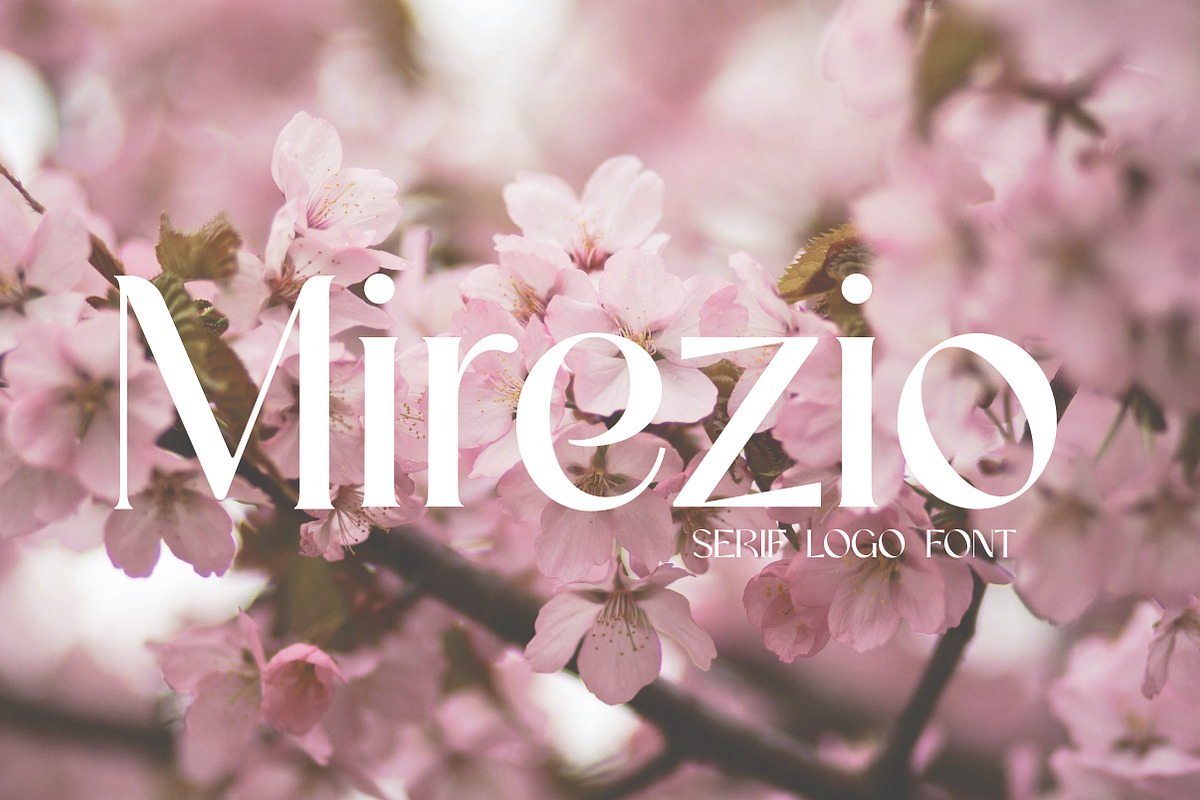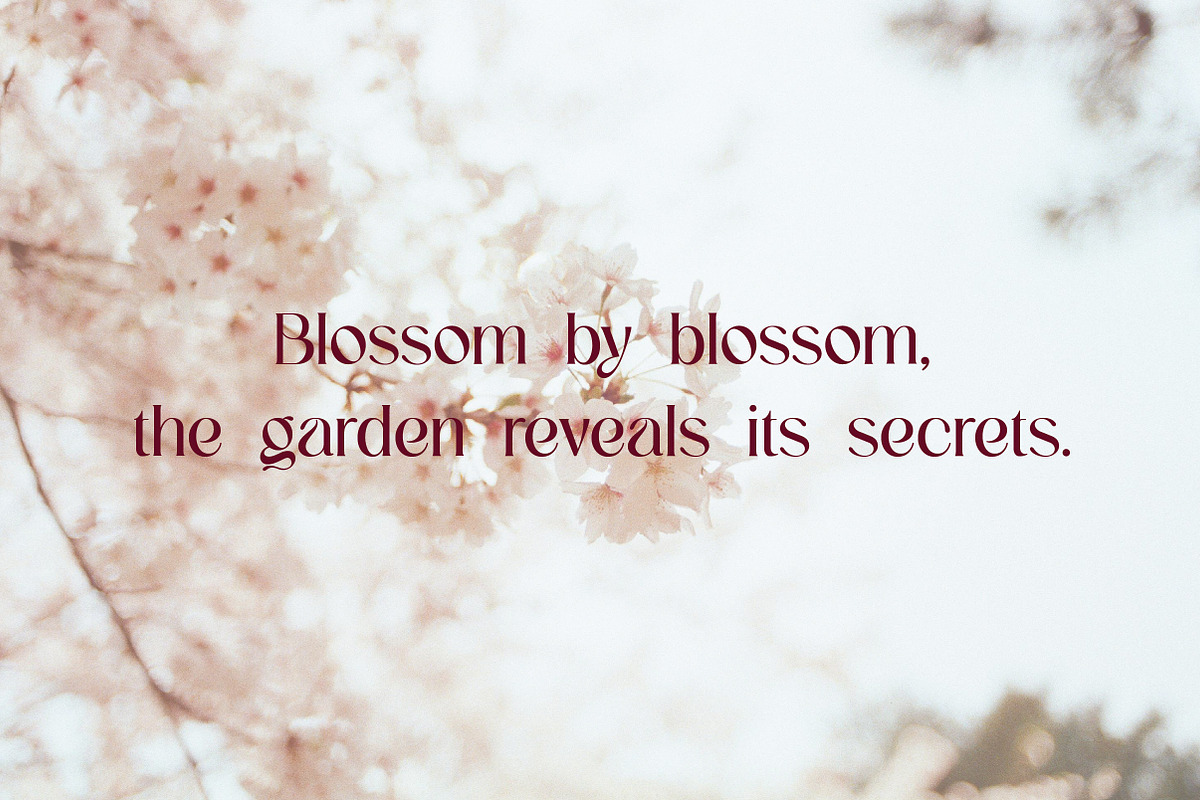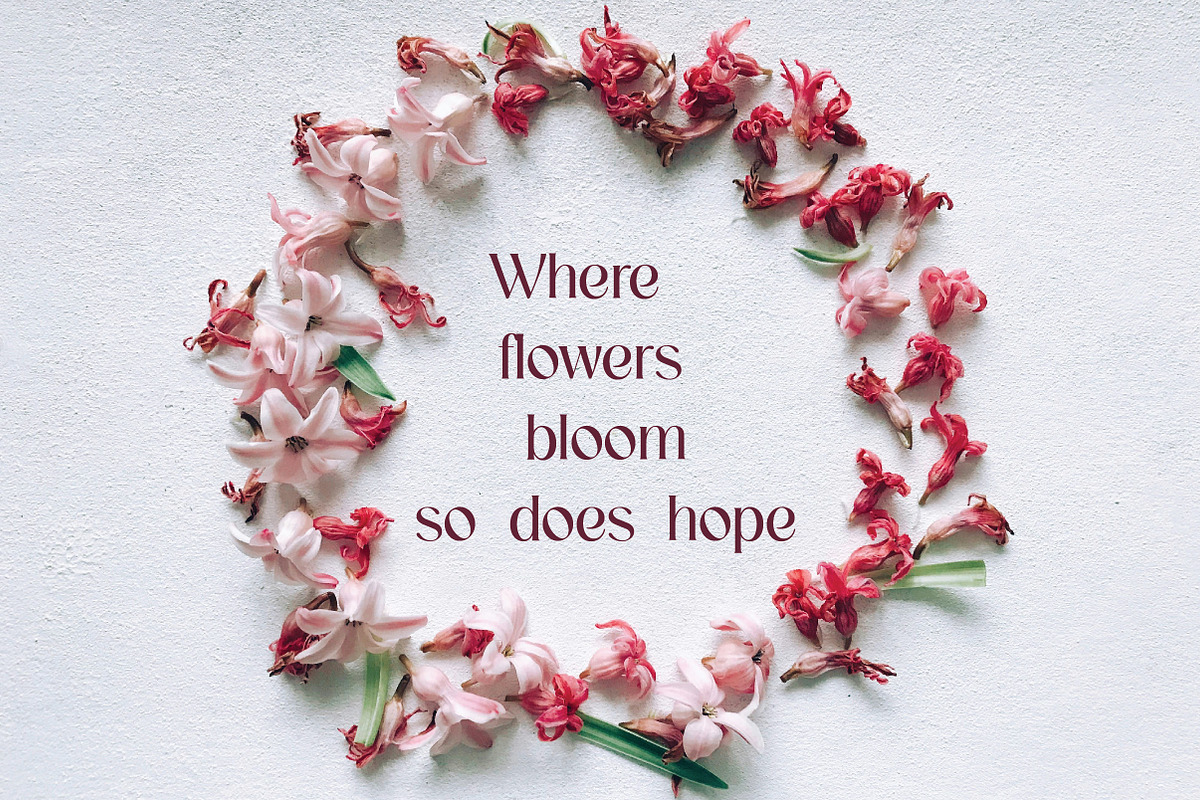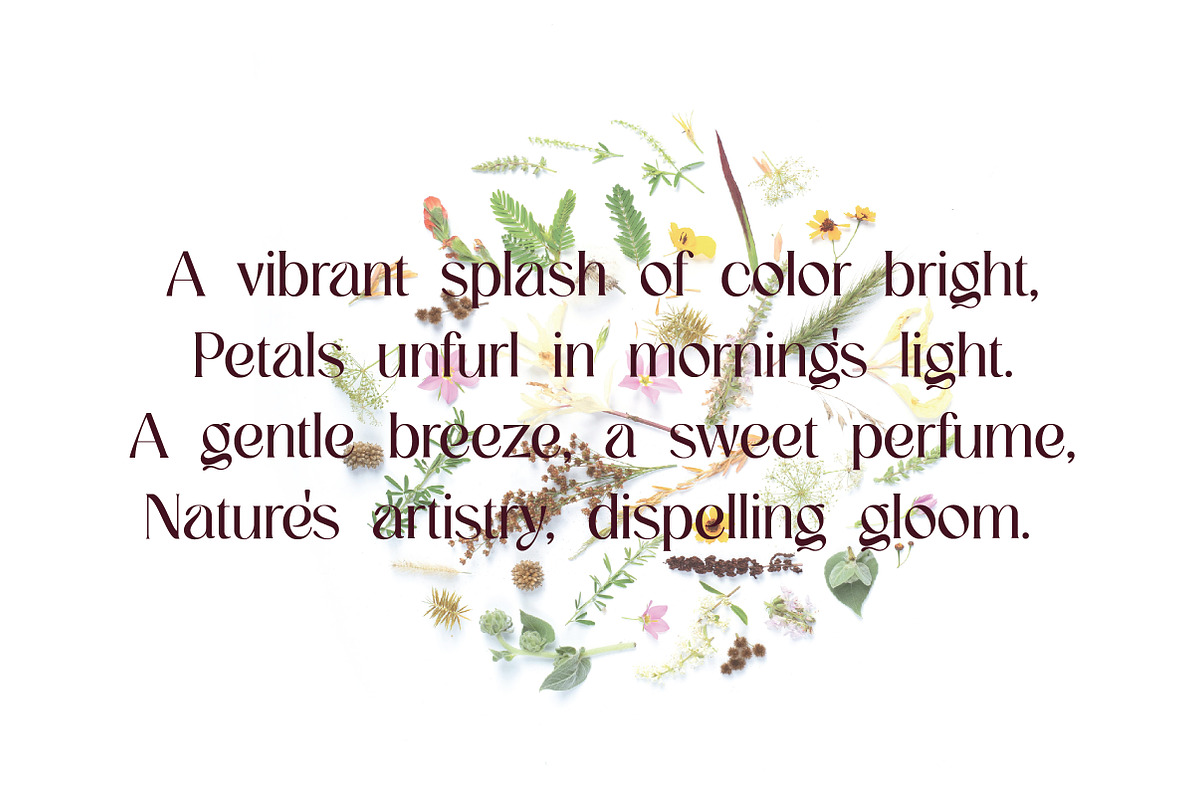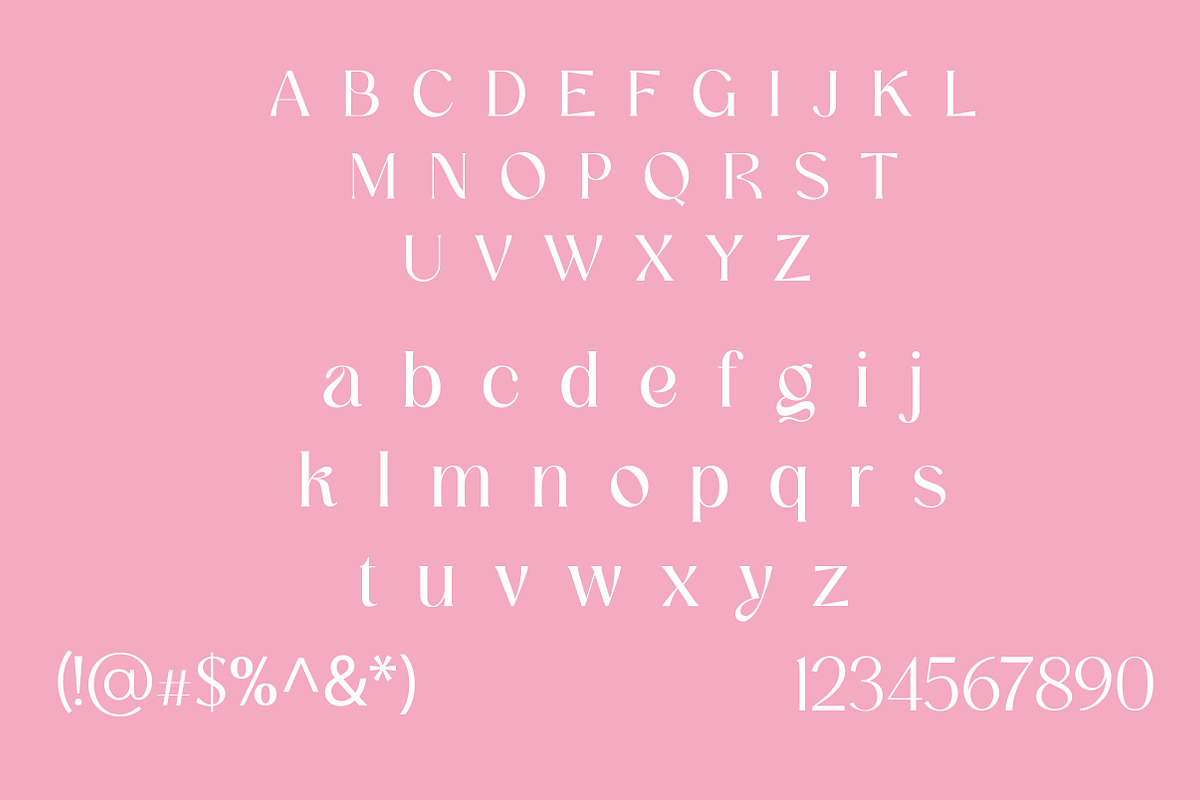
Mirezio | Sophisticated Modern Serif
Mirezio is a sophisticated serif typeface that merges modern elegance with timeless design. With clean lines, graceful curves, and refined serifs, Mirezio Regular is ideal for branding, editorial layouts, packaging, invitations, logos, and upscale digital or print content. Designed for both display and body text, it offers excellent legibility and visual balance. Whether used in digital branding or luxury print materials, Mirezio delivers a polished, professional tone that elevates any project.
Mirezio is the perfect serif font for designers seeking a refined and modern typographic solution with classic roots.